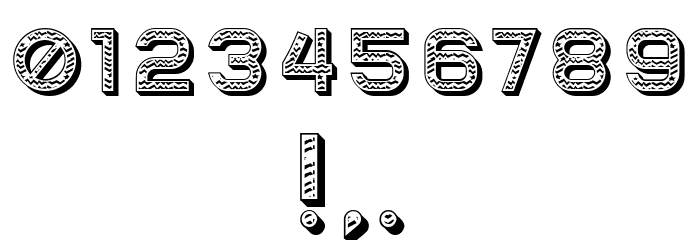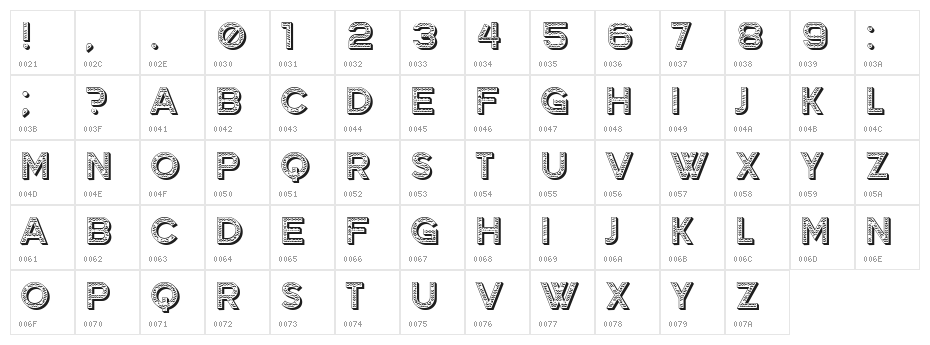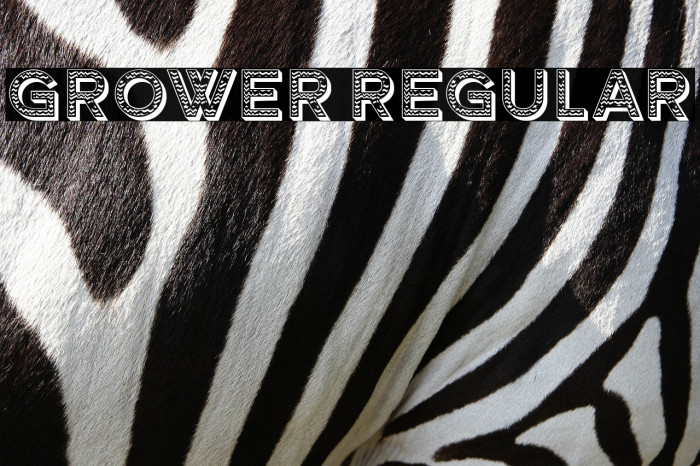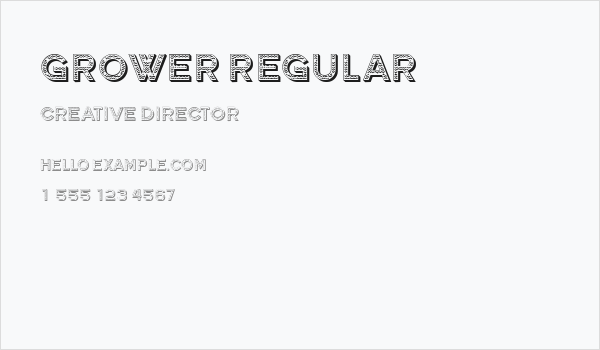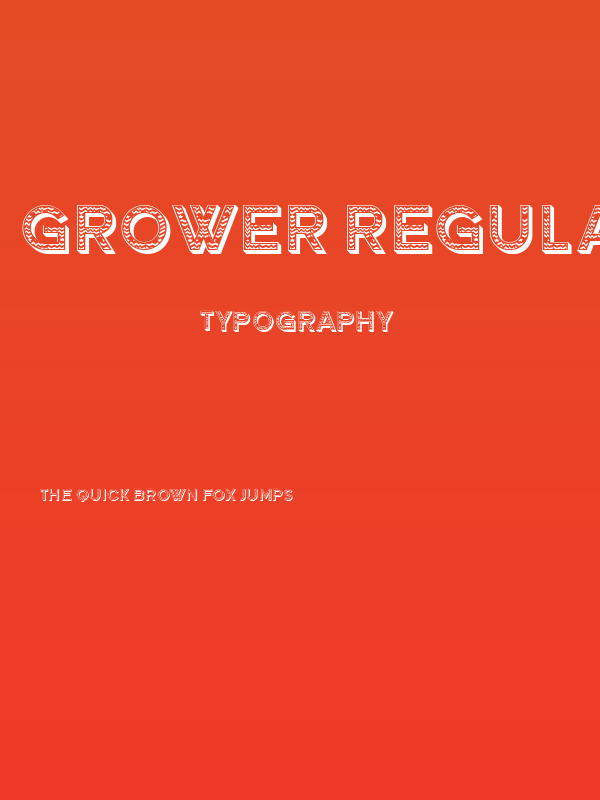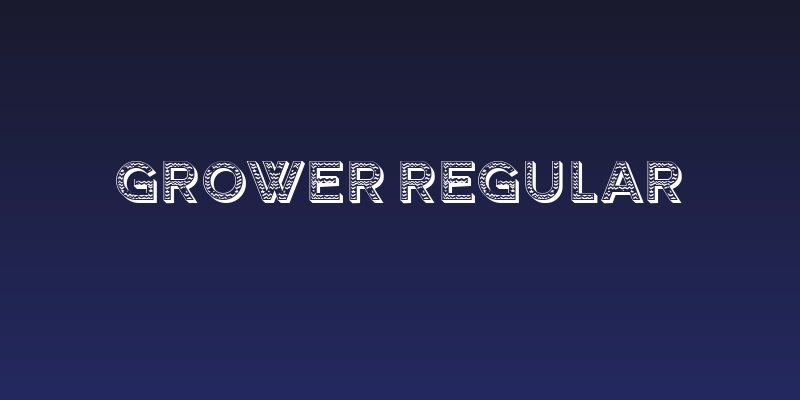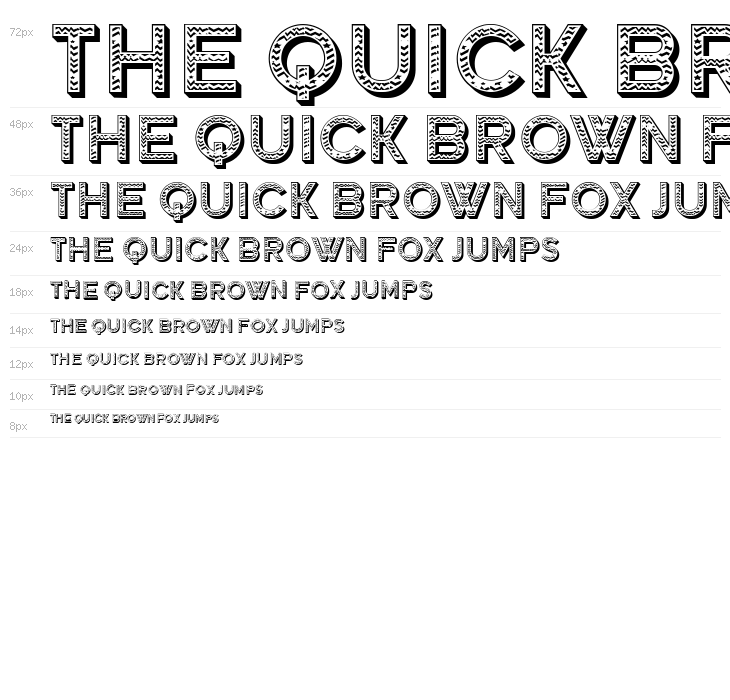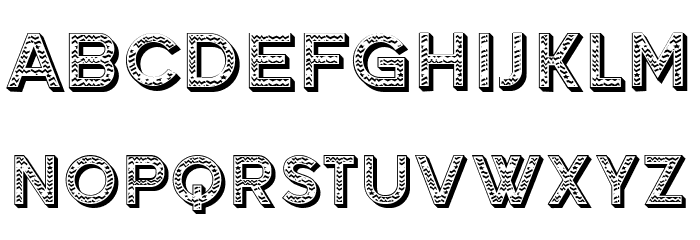
Grower Regular Font
Grower Regular Description
This font features a bold, decorative style with a unique textured pattern inside each character, giving it a three-dimensional appearance. The uppercase letters are consistent in height and width, providing a strong and uniform look. The numbers and special characters follow the same design principles, ensuring cohesion across all elements. The font's playful yet structured design makes it stand out, with a distinct shadow effect that adds depth. Its intricate detailing and bold presence make it ideal for eye-catching designs.
| Proposed Projects | Ideal for posters, headlines, branding, and any design requiring a bold, eye-catching typeface. |